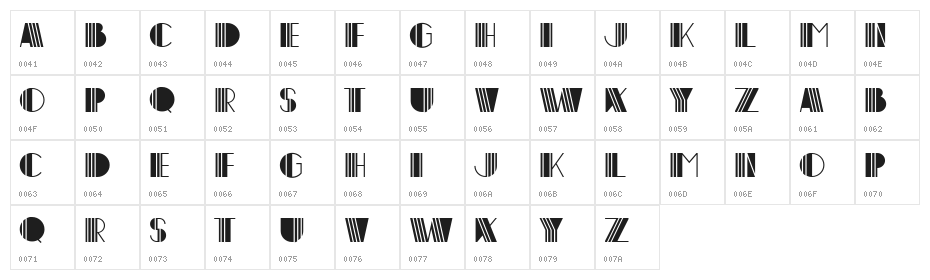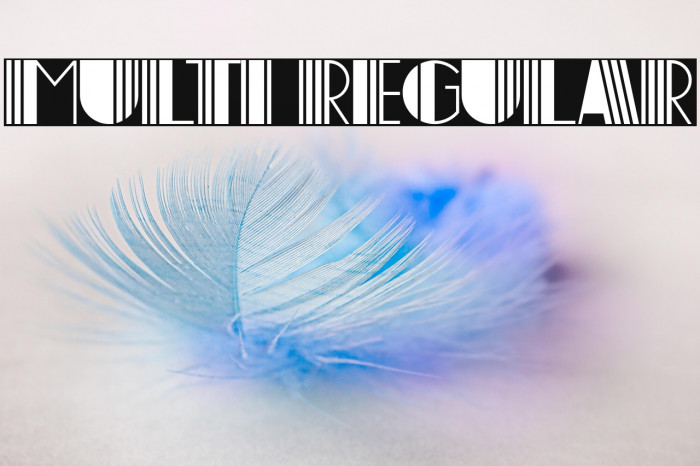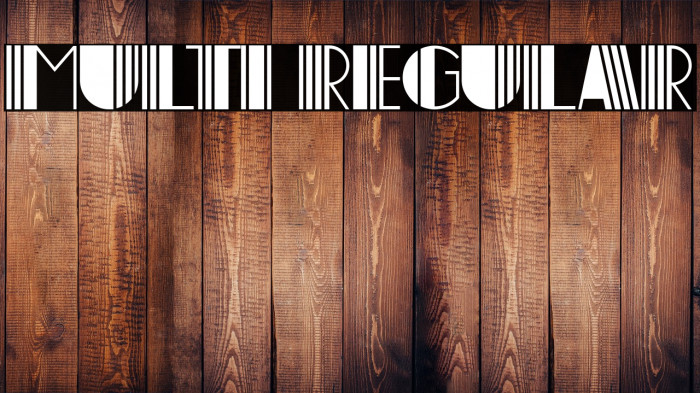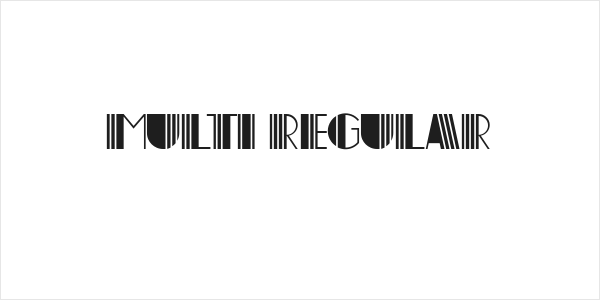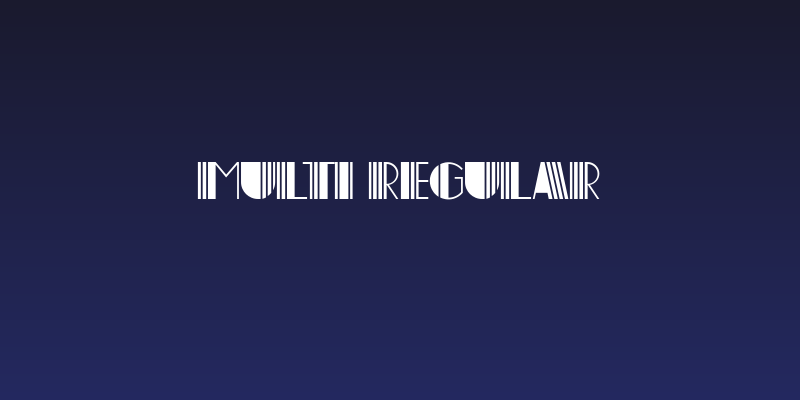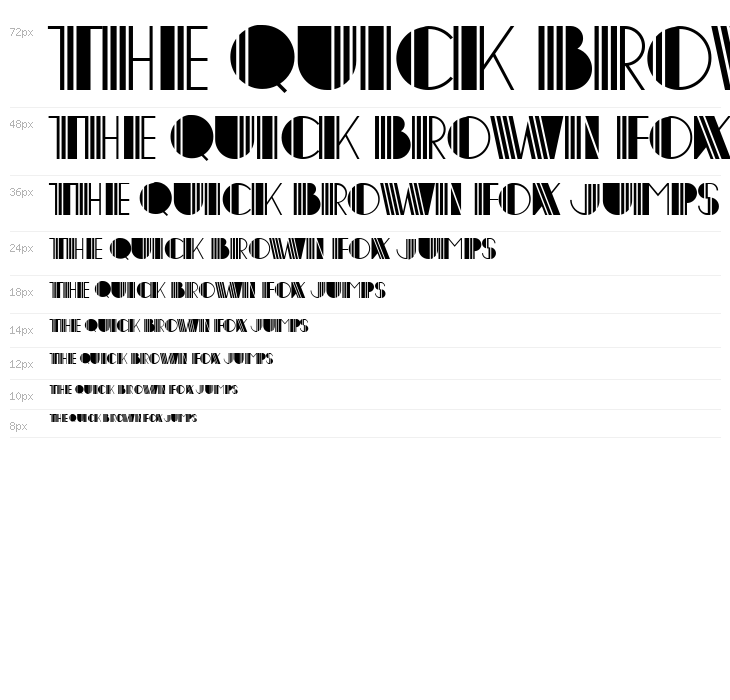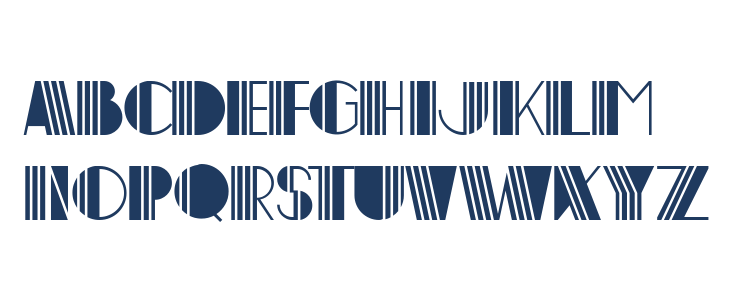
Multi Regular Font
Multi Regular Description
This font features a bold, geometric design with a distinct art deco influence. The characters are composed of thick, vertical lines that create a sense of rhythm and movement. The uppercase letters are particularly striking, with their bold, linear forms that convey a sense of strength and modernity. The lowercase letters maintain the same stylistic elements, ensuring consistency throughout the typeface. The numbers and special characters are equally bold, making them stand out in any design. This font is ideal for projects that require a strong visual impact and a modern aesthetic.